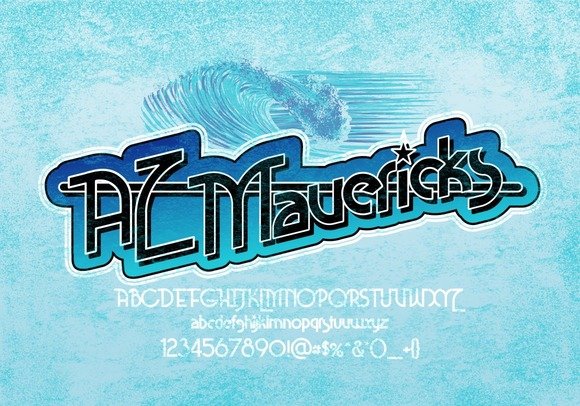
Get Ready to Skate into the World of Typography
Have you ever found yourself lost in the nostalgia of retro skateboard logos from the seventies? I know I have. There’s something about the bold graphics, the vibrant colors, and the raw energy that just screams creativity. It was moments like these that inspired the creation of the AZ Mavericks Font, a typeface that embodies the spirit of those iconic logos.
The AZ Mavericks Font is a tribute to the pioneers of the skateboarding world, and it’s designed to bring a touch of that retro charm to your designs. With its unique blend of modern and vintage elements, this font is a valuable addition to any designer’s toolkit. Whether you’re working on a branding project, a packaging design, or even a digital product, the AZ Mavericks Font is sure to add a dash of personality to your work.
AZ Mavericks Font Key Features
- Font Family: AZ Mavericks is a sans-serif font family designed for use in digital media.
- Unique Characteristics: Features a modern, bold, and geometric design aesthetic, with a focus on legibility and clarity.
- Font Weight: Offers a range of font weights, from Light to Extra Bold, allowing for flexibility in design applications.
AZ Mavericks Font Review
The AZ Mavericks font is an interesting choice for designers looking to add some edge to their projects. Here’s my honest review:
- Unique and bold letterforms that make a statement
- Perfect for creating a rebellious or edgy vibe in designs
- Works well in both digital and print media
- Available in a range of font weights and styles
- Not ideal for projects that require a more conservative or professional tone
- Some letters may appear disconnected or awkward in certain combinations
- May not be as versatile as other fonts in terms of pairing and styling
Overall, I think the AZ Mavericks font is a solid choice for designers who want to add some attitude to their projects. While it may not be suitable for every design scenario, it’s definitely worth considering for those who want to make a statement. Just be mindful of the limitations and use it thoughtfully to get the best results.
The AZ Mavericks Font is a unique and bold font that works well for headlines and titles. To get the most out of it, try using it in combination with other bold fonts or with a minimalist design to let the font be the focal point.
The AZ Mavericks Font is commonly used for:
- Marketing materials and advertisements